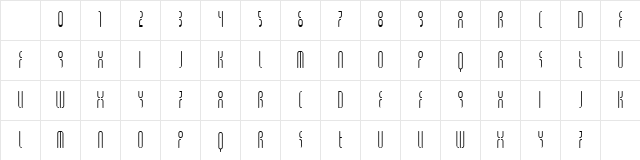
Complete Gen3000 Thin glyph index. Displaying only characters natively supported by Gen3000 Thin font.
Gen3000 is a composed and adaptable typeface that performs quietly and consistently across a wide range of design contexts. Its slender proportions lend an understated elegance to any composition.